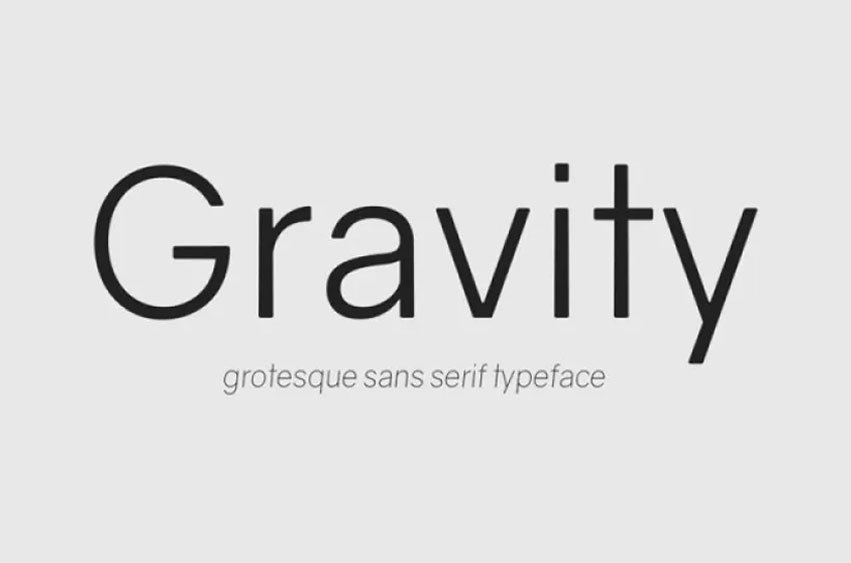
Gravity Font is a typographic experiment, born from the desire to deepen my knowledge about this discipline. It is also a new grotesque sans serif typeface designed with a unique balance and large counters. The typeface uses the “gravity” as a distinctive, functional and aesthetic feature of the font.
Gravity is a family composed by 5 weights: Ultralight, Light, Book, Regular Bold, plus companions.